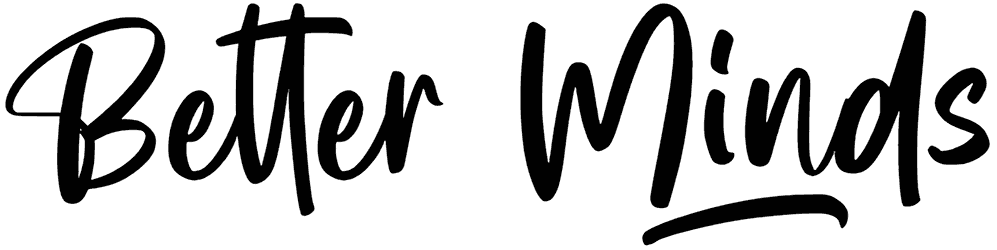
Better Minds Font
Better Minds, a handwritten font with a pleasing appearance, can be used for a lot of different things, like logos, blog headlines, branding, and poster design.